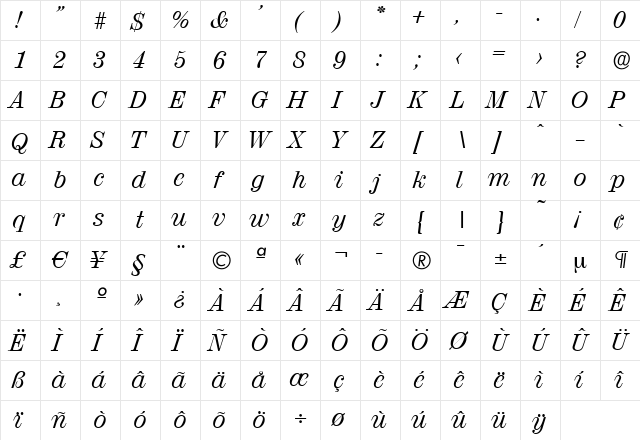
NormanBecker Italic
Design Context for NormanBecker Typeface
NormanBecker takes a measured approach to typography — its balanced proportions and neutral character make it a reliable workhorse for both digital and print work. Its italic angle brings a sense of urgency and motion to the letterforms.
Pro Tip: Try NormanBecker for annotation and caption copy alongside an upright companion — the contrast in angle creates a dynamic but ordered typographic system.